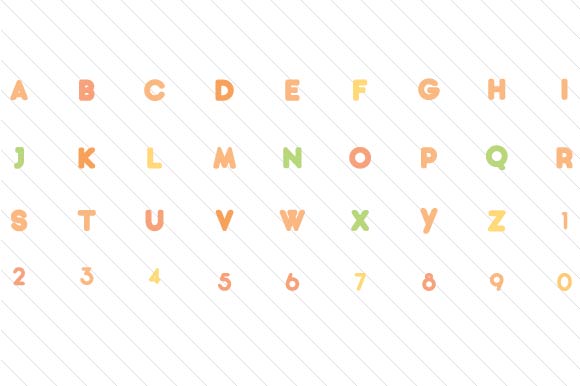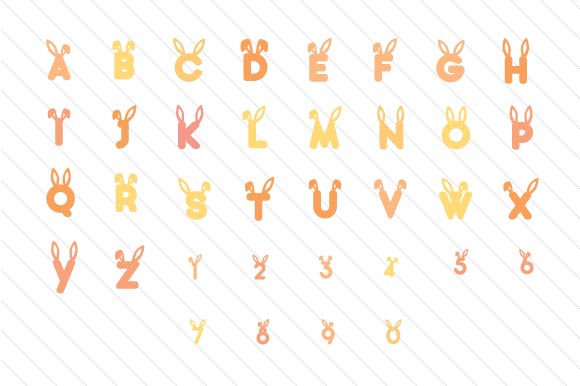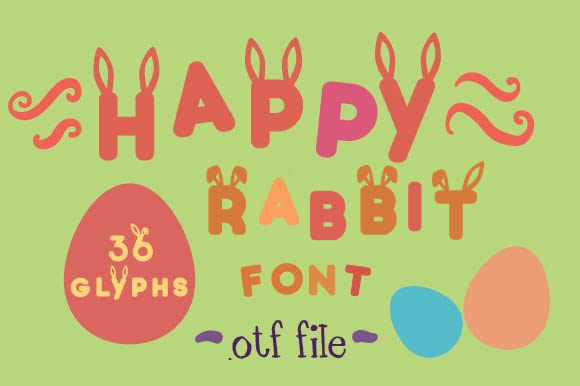
Happy Rabbit
About Happy Rabbit Font
The Happy Rabbit font is the ultimate Easter & Bunny-themed font.
This font is perfect for creating Easter cards & decorations, themed birthday parties, nursery decals and more. Using this font is very simple. You can install the font as any other font. When you type lowercase characters, the letters will appearwithbunny ears. If you type capitals, the characterswithoutbunny ears will appear. This way you can easily alternate between the letters with and without ears.